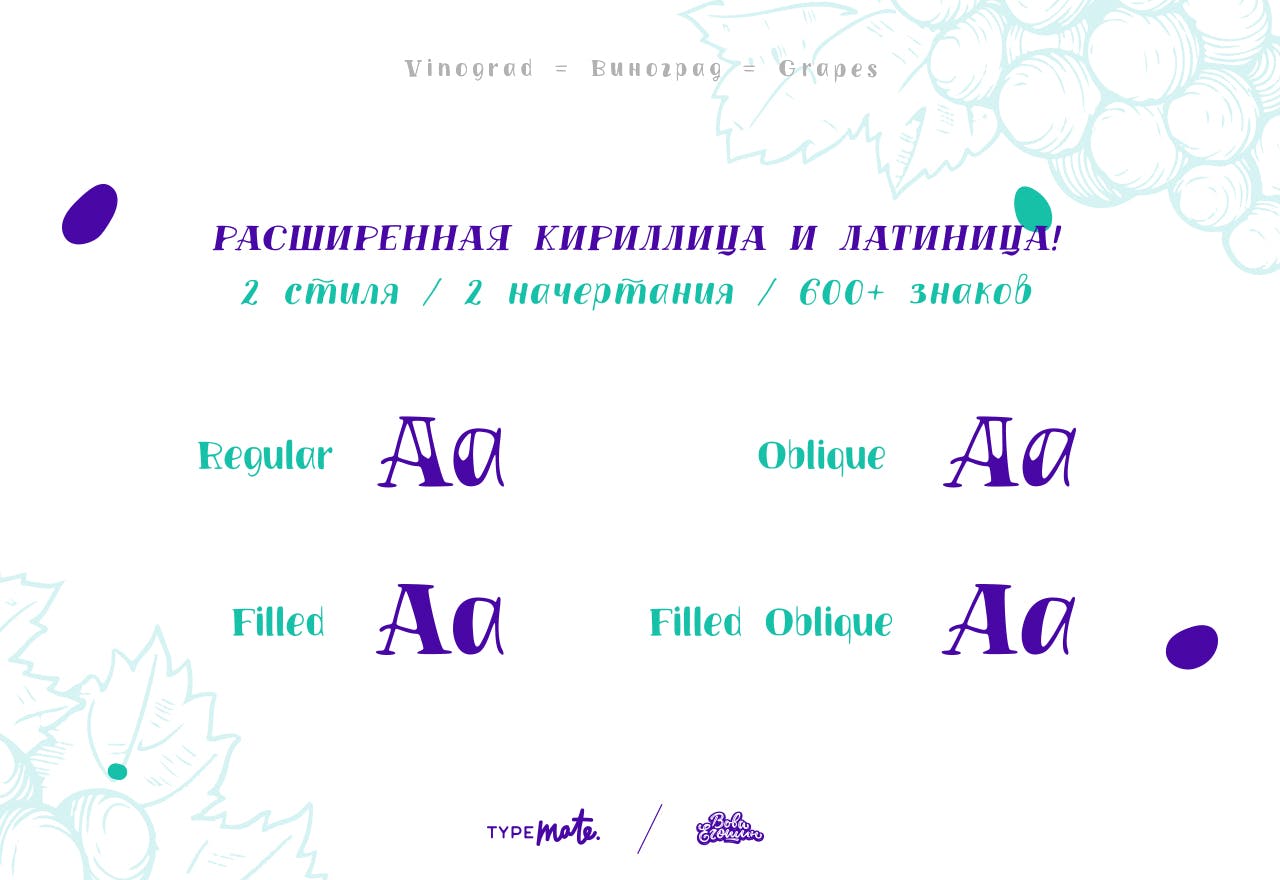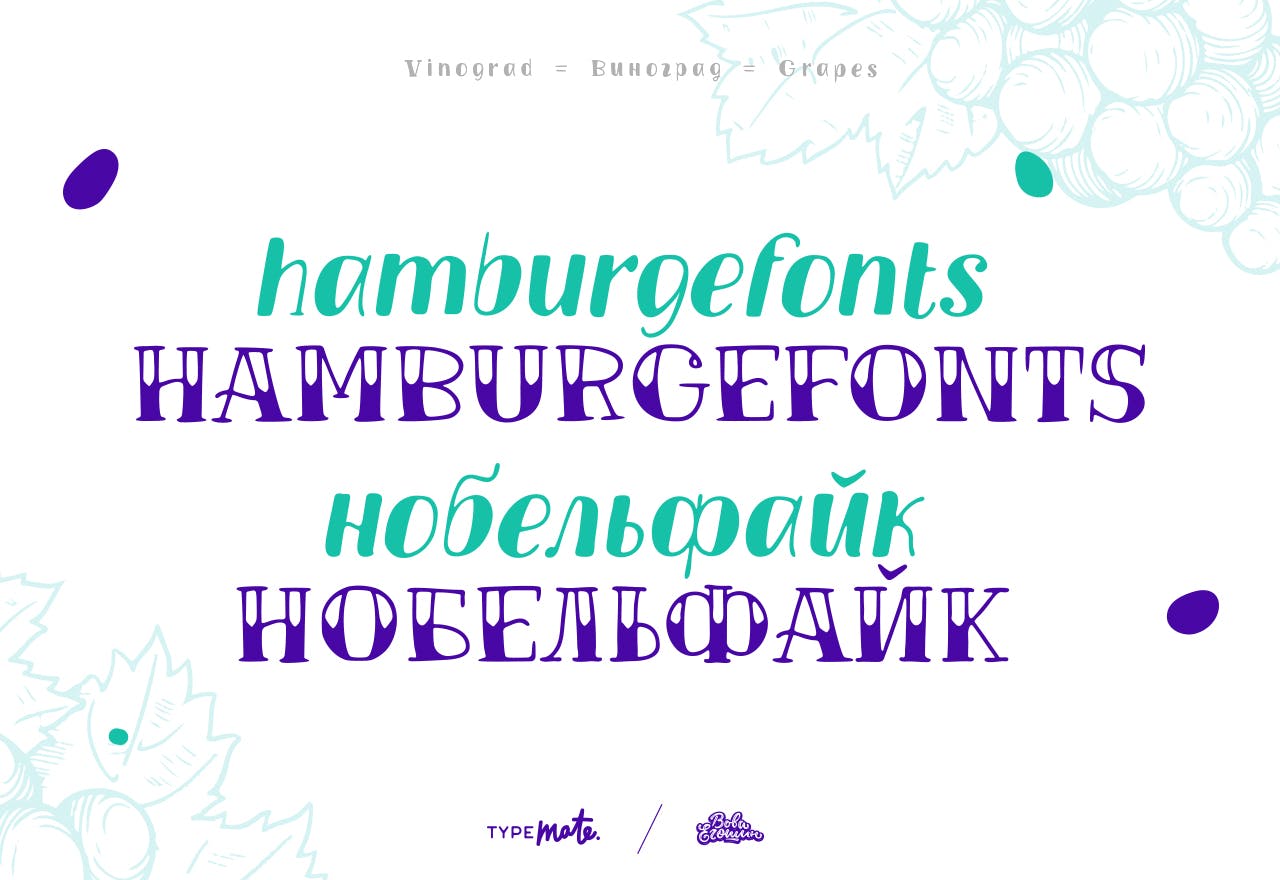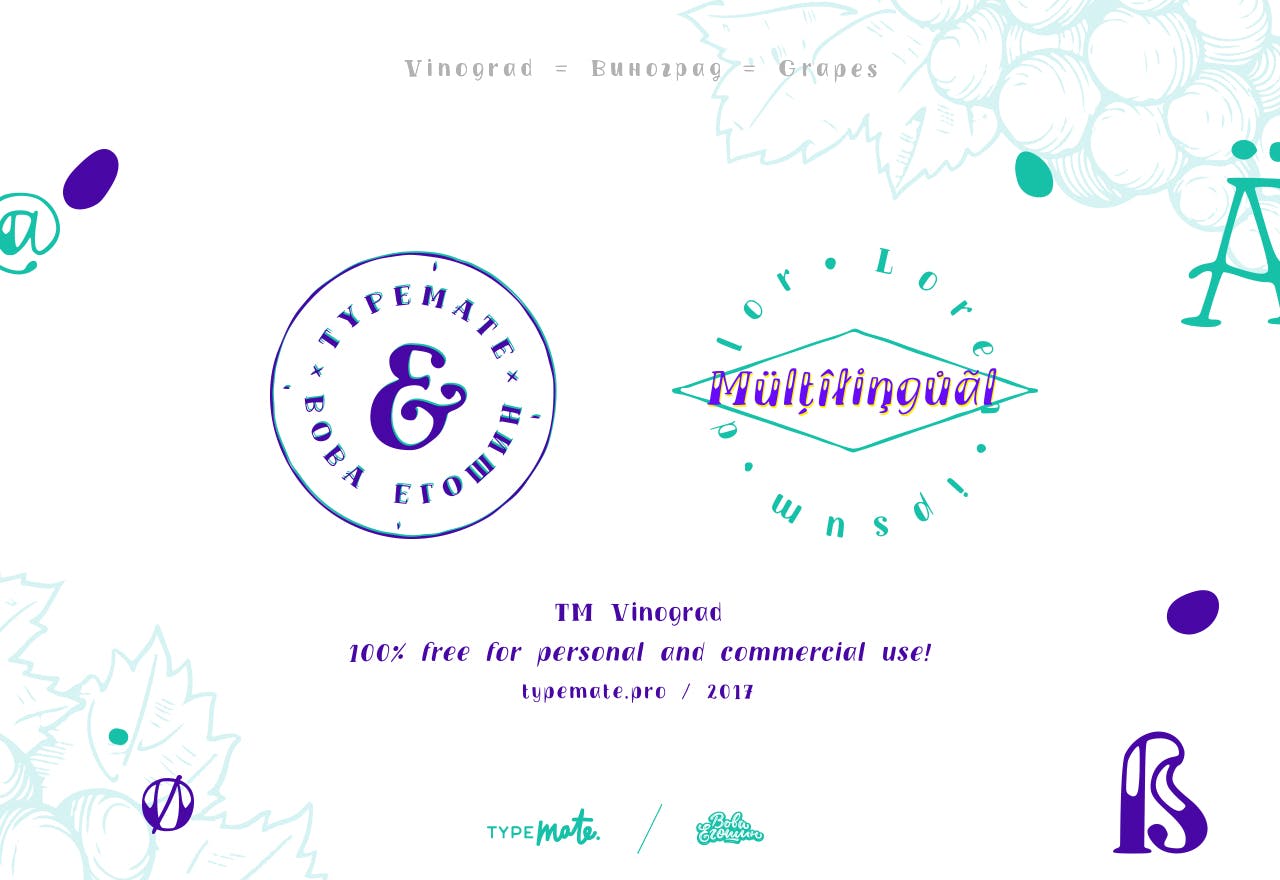
TM Vinograd Free Handwritten Typeface
TM Vinograd Free Handwritten Typeface is a set of display font, very specific and contrast! These fonts are suitable for different design purposes. Combine its styles and create a perfect design for headings, logos, packaging. It is also great for childrenโ€™s books, magazines, and T-shirt prints! Also, it is coming with extended Cyrillic and Latin! 2 style / 2 Inscription / 600+ glyphs 100% Free for personal or commercial use!